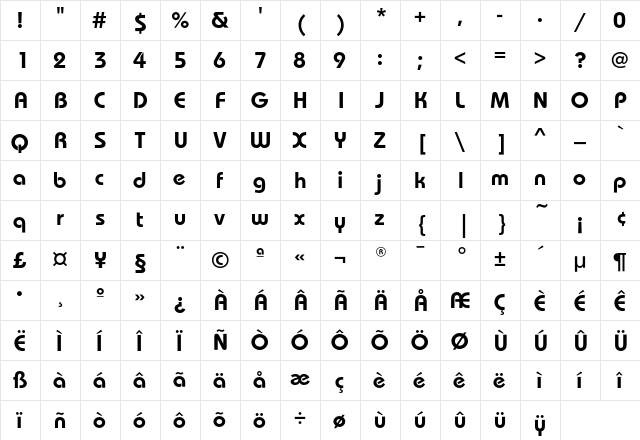
BauhausEF-Demibold Regular Font Preview
BauhausEF-Demibold Regular
Design Context for BauhausEF-Demibold Typeface
BauhausEF-Demibold is a composed and adaptable typeface that performs quietly and consistently across a wide range of design contexts. The heavy weight commands attention and anchors typographic hierarchies.